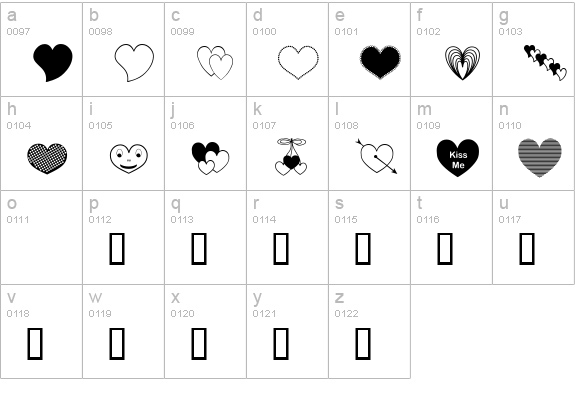
ap_justhearts Font Details
Introducing ap_justhearts font, a delightful and whimsical typeface that will bring a touch of charm to your design projects. This unique font features heart-shaped details within each character, adding a sweet and playful element to your text. Perfect for creating eye-catching invitations, greeting cards, posters, and more, ap_justhearts font is sure to capture the hearts of your audience. Its elegant yet fun design makes it versatile for a wide range of creative applications. Best of all, ap_justhearts font is available for free download at FontsMarket.com, so you can easily add this lovely font to your collection without breaking the bank. Don't miss out on the opportunity to add a touch of love and whimsy to your designs with ap_justhearts font today!